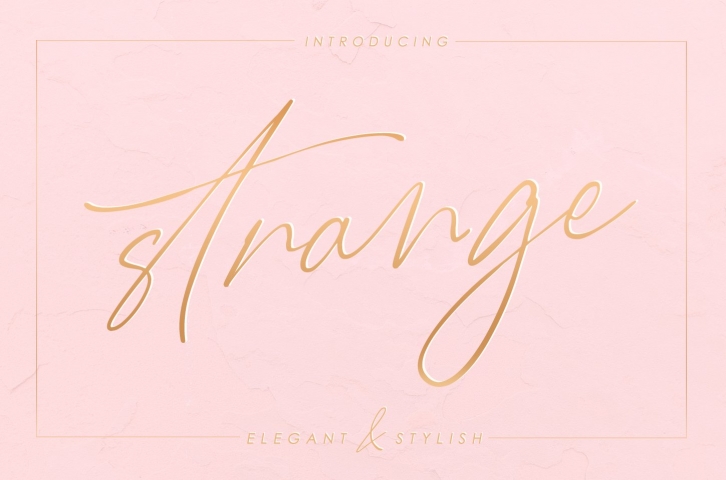
Strange is a trendy and unique font with an authentic style. It was designed by Jine Cameo and it's a great choice for creative people who need such a font. It was released on March 4, 2020 and the file size is 2.11 MB. Strange will add an organic vibe to any design idea!